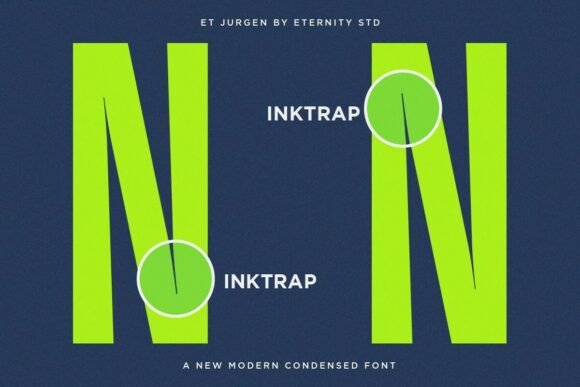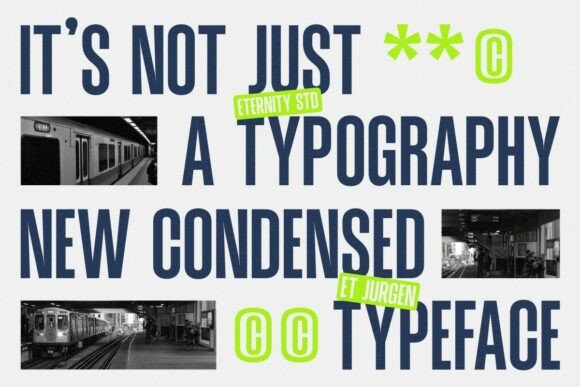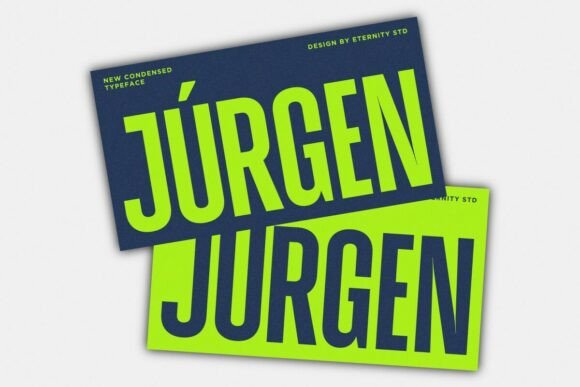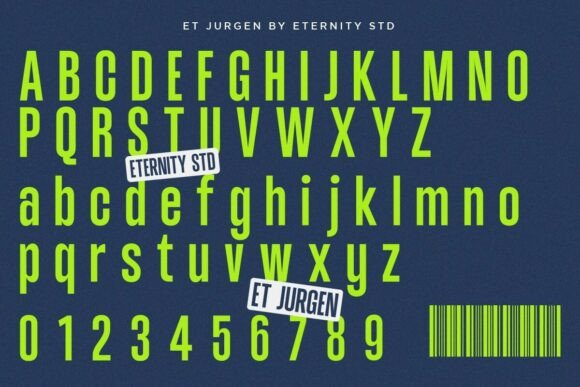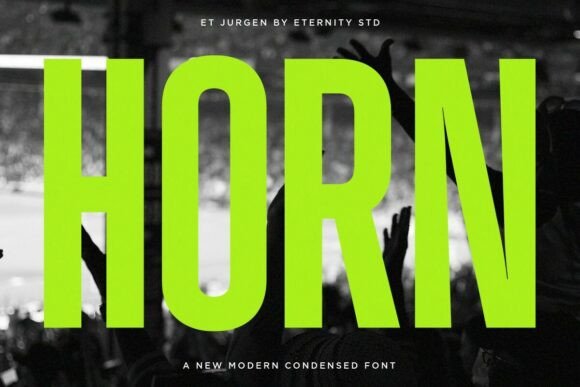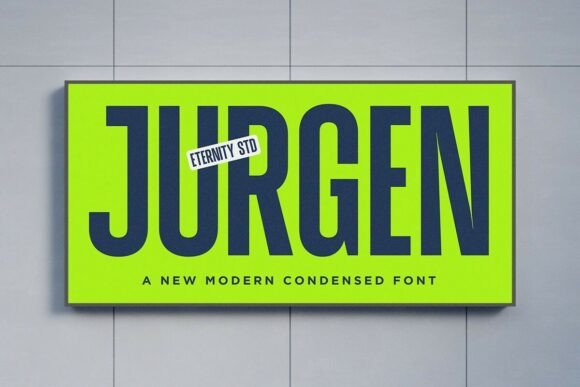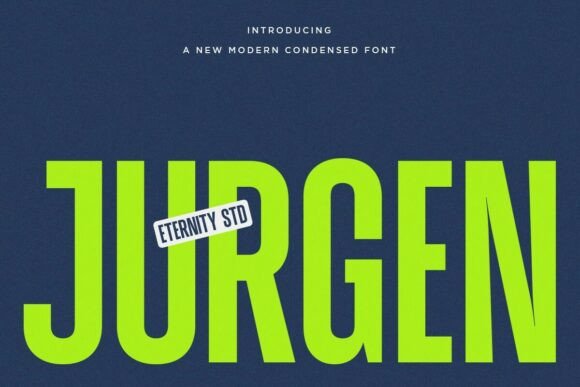
Introducing **ET JURGEN**: The Ultimate Modern Typography Experience
In the world of typography, few fonts make a statement like **ET JURGEN**. This sharply condensed Sans Serif font is the epitome of modern design, delivering maximum visual impact in minimal space. With its precision-crafted clean lines and confident structure, **ET JURGEN** is the perfect choice for designers and crafters looking to elevate their high-fashion branding, compelling headlines, and projects that demand a distinct, powerful aesthetic.
Key Features of **ET JURGEN**
- Bold Display Power: Designed specifically for large sizes, **ET JURGEN** ensures your headlines, titles, and posters grab immediate attention. Its bold presence makes it ideal for applications where you want to make a lasting impression.
- Space Optimization: The condensed height of **ET JURGEN** allows for more text while maintaining a powerful visual weight. This feature makes it perfect for labels and tight editorial spreads where space is limited but impact is essential.
- Modern Versatility: The clean lines of **ET JURGEN** make it highly compatible with both minimalist and luxury design systems. This versatility ensures that **ET JURGEN** can seamlessly integrate into a wide range of design projects, from fashion branding to editorial content.
- Unrivaled Clarity: Despite its punchy style, **ET JURGEN** maintains flawless readability across both digital and print media. This ensures that your message is conveyed effectively, regardless of the platform or medium.
Ideal for High-Impact Projects
**ET JURGEN** is not just a font; it’s a design statement. Its unique characteristics make it particularly suited for projects that require a high level of visual sophistication and impact. Some ideal applications for **ET JURGEN** include:
- High-End Branding & Logos: Elevate your brand with a typography that exudes luxury and modernity.
- Magazine Titles & Headlines: Capture the essence of your editorial content with bold, attention-grabbing headlines.
- Apparel & Merchandise Design: Add a touch of high-fashion to your apparel and merchandise with **ET JURGEN**’s distinctive style.
- Album Covers & Posters: Make your music releases and event posters stand out with a typography that commands attention.
Why Choose **ET JURGEN**?
In a market flooded with typography options, **ET JURGEN** stands out for its unique blend of style, versatility, and impact. Here are a few reasons why **ET JURGEN** should be your go-to font for high-end projects:
- Unique Aesthetic: **ET JURGEN** offers a fresh and modern look that can help differentiate your brand or project from the competition.
- High Versatility: Whether you’re working on digital content or print materials, **ET JURGEN** adapts seamlessly, ensuring consistency across all platforms.
- Enhanced Readability: Despite its bold and condensed design, **ET JURGEN** prioritizes readability, ensuring your message is always communicated effectively.
**ET JURGEN** is more than just a font; it’s a design experience. Its modern typography, combined with its versatility and readability, makes it an invaluable tool for designers and crafters looking to make a statement. Whether you’re aiming to elevate your brand, create compelling headlines, or simply add a touch of modern sophistication to your projects, **ET JURGEN** is the ultimate choice. Embrace the power of **ET JURGEN** and transform your designs with a typography that truly stands out.